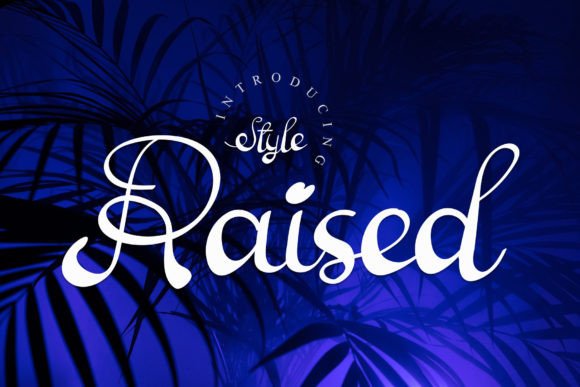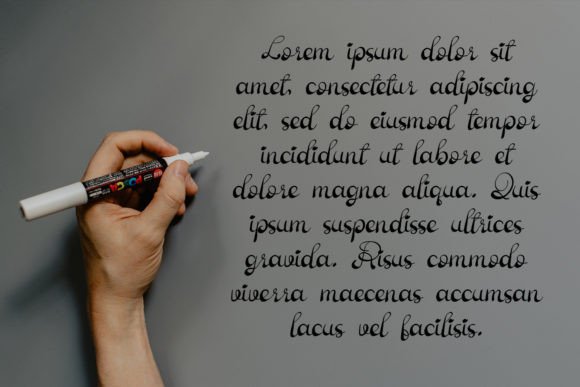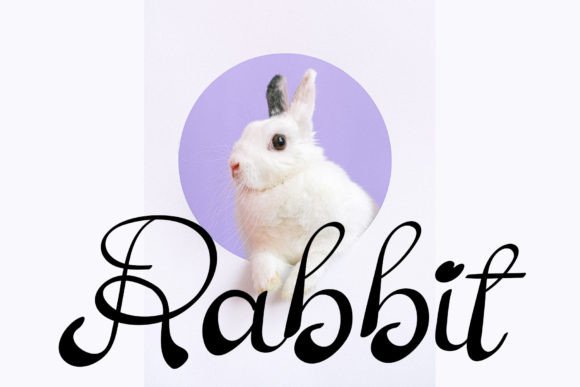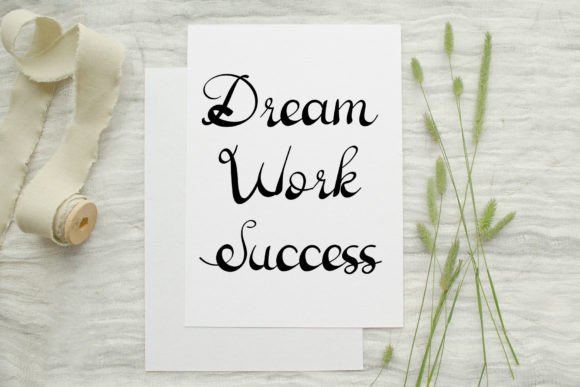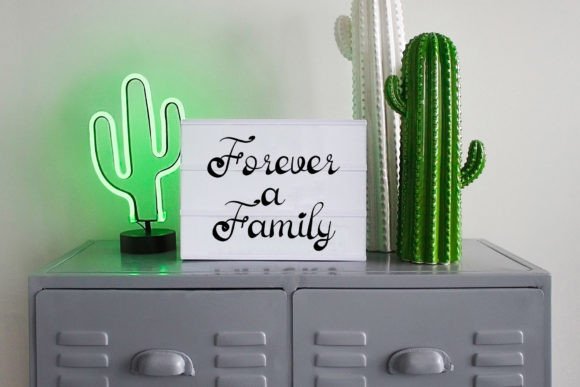
Raised Font
✍️ About Raised Font
Raised is a beautiful handwritten font created with care and creativity. It combines elegance with a natural handwritten feel, making it ideal for adding personality to your design work. With its flowing strokes and varied baseline, Raised gives your projects a unique charm that stands out in both digital and print formats.
Whether you’re working on wedding stationery or product branding, this font brings a handcrafted vibe that feels both stylish and personal.
💌 Ideal for Special Projects
Raised Font was designed to shine in heartfelt and elegant design projects. Its fluid script and soft movement make it especially suited for:
• Wedding invitations and RSVP cards
• Save-the-date announcements
• Thank-you cards and love letters
• Personalized gift tags and packaging
• Business branding for boutiques or creatives
• Billboards and posters with elegant messaging
• Signature-style logos and watermarks
• Greeting cards and calligraphy-inspired artwork
No matter the occasion, Raised can help convey emotion and warmth through its graceful strokes.
✨ Features & Style
What sets Raised apart from other script fonts is its handcrafted look with modern balance. It was written with attention to rhythm, spacing, and harmony.
Font Features Include:
• Handwritten calligraphy style
• Uppercase and lowercase letters
• Numbers, punctuation, and symbols
• PUA encoded (easy access to swashes and alternates)
• Smooth curves and varied baselines for a dynamic look
• Multilingual support
Raised is more than just a script font. It’s a tool that adds elegance and sincerity to your messages. Its soft and fluid strokes give it a feeling of movement, while the carefully crafted characters keep it clean and easy to read.
If you’re a designer looking for a romantic, yet refined font, Raised will quickly become one of your go-to typefaces. It works wonderfully on its own, but also pairs well with serif or sans serif fonts for contrast and balance.
Use it to create branding that speaks from the heart or event materials that feel deeply personal.